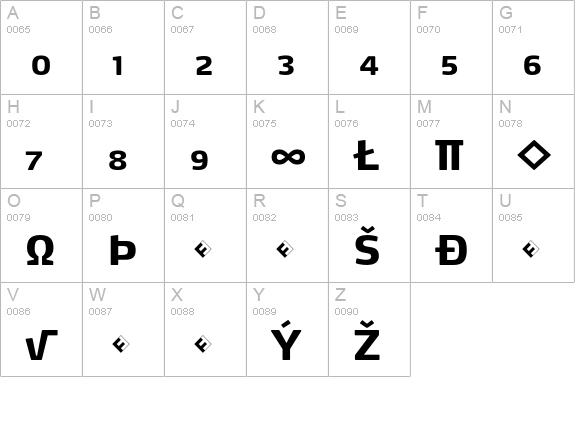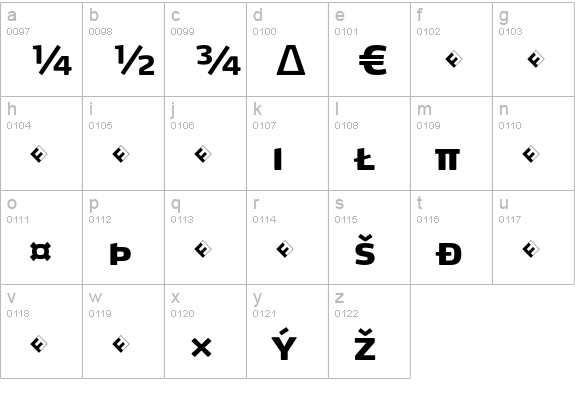
Max-ExtraBoldSCExpert Font Details
Max-ExtraBoldSCExpert is a bold and eye-catching font that exudes strength and confidence. Its extra bold weight commands attention and makes a powerful statement in any design project. This font is perfect for headlines, titles, and any text that needs to stand out. Max-ExtraBoldSCExpert is a versatile font that can be used in a variety of design applications, from branding to posters to packaging. Its expertly crafted small caps add a touch of sophistication and elegance to any design. Best of all, Max-ExtraBoldSCExpert is available for free download at FontsMarket.com. This means you can easily access this high-quality font and use it in your projects without any cost. Don't miss out on the opportunity to add Max-ExtraBoldSCExpert to your font collection today!